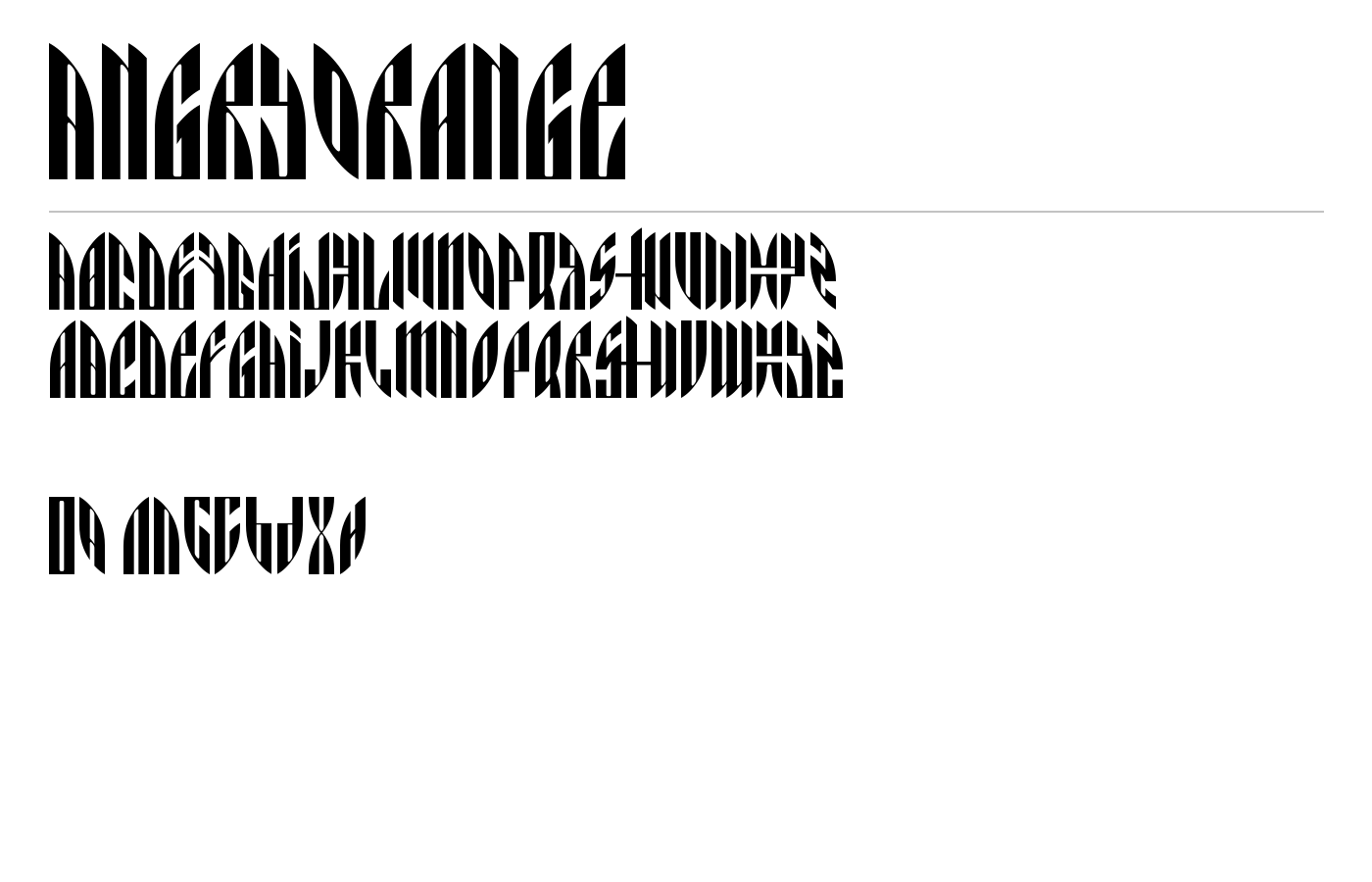
AngryOrange is a bold, condensed display font with sharp, geometric shapes and high contrast between thick and thin strokes. Its futuristic and edgy style, featuring unique angular letterforms and all-caps design, makes it perfect for striking headlines, logos, and posters that demand attention and convey a strong, modern personality. This font works best in creative branding and editorial designs where a dramatic, impactful look is desired.
AngryOrange Font
About AngryOrange Font
| Font family | AngryOrange Font |
| Designer | ykl |